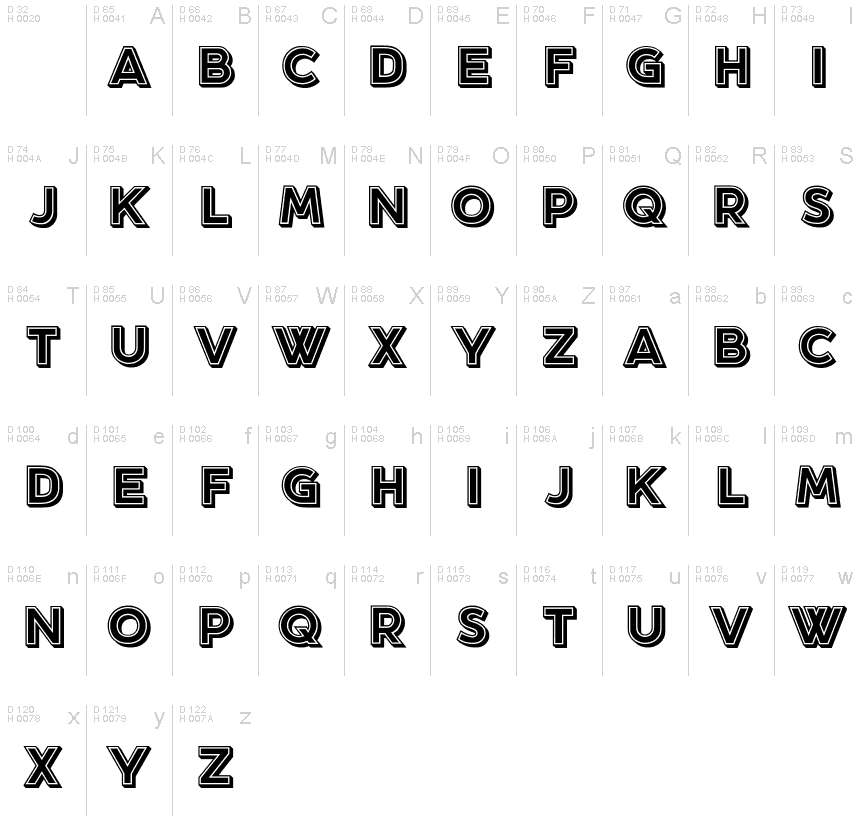
Sunshine 3D Regular
Sunshine 3D is a bold and playful sans serif font that will add dimension and excitement to any design project. Created by renowned designer Vladimir Nikolic, this 3D font is perfect for logos, posters, and branding materials that call for a touch of creative flair. The bold weight of the Sunshine typeface ensures that your message will be noticed loud and clear. Its unique style makes it ideal for use in video game design, children's books, or any project that requires a fun and whimsical touch. Add some sunshine to your next project with the Sunshine 3D font!